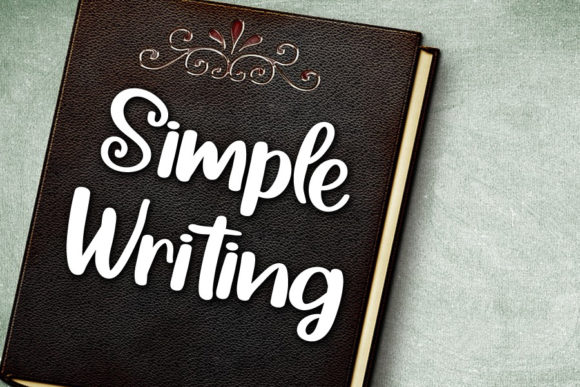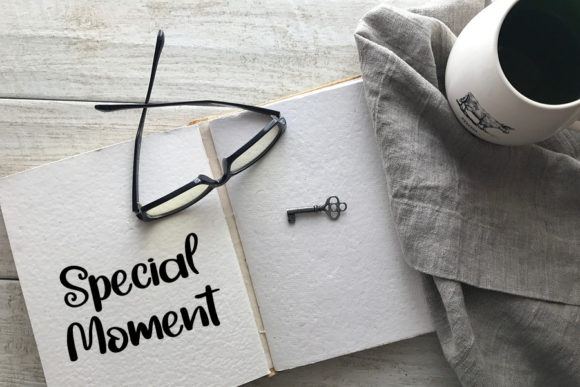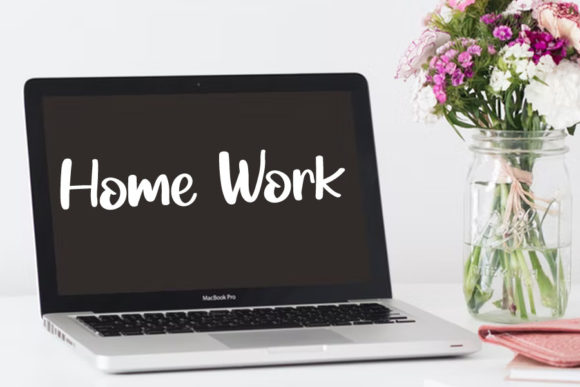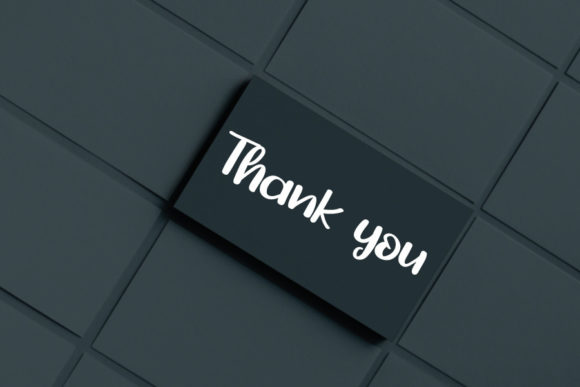
Simple Writing Font
About Simple Writing Font
“Simple Writing” is described as a fresh and beautiful font, well-suited for a variety of design purposes including YouTube banners, cover logo mockups, wedding invitations, ID cards, flyers, and crafts. The claim is made that using this font can contribute to the progress and development of your business. Additionally, it is highlighted as a font that is simple and unique.
The versatility of “Simple Writing” is emphasized by its applicability across different design contexts, suggesting that it can enhance a wide range of visual materials. The font is positioned as a potential tool to positively impact business growth and development, making it suitable for business-related design projects.
The simplicity and uniqueness of the font are emphasized, suggesting that “Simple Writing” offers a straightforward and distinctive visual style. This simplicity can be an asset in design, providing clarity and ease of readability. The uniqueness implies that the font carries an individual character, helping it stand out in various applications.
In summary, “Simple Writing” is presented as a font that brings freshness, simplicity, and uniqueness to your design projects. Its potential impact on business development is highlighted, making it a versatile choice for businesses seeking a font that combines visual appeal with simplicity and individuality in their design materials.